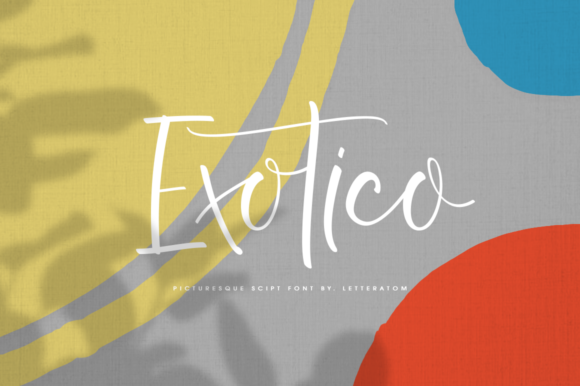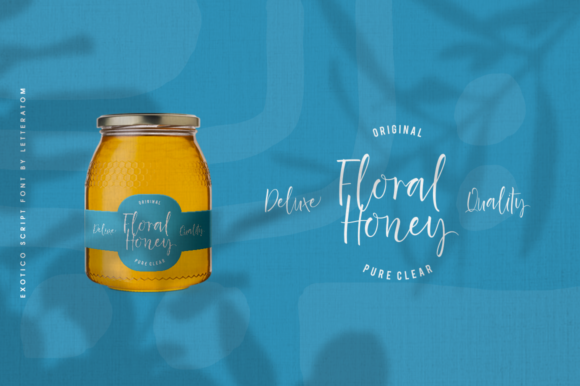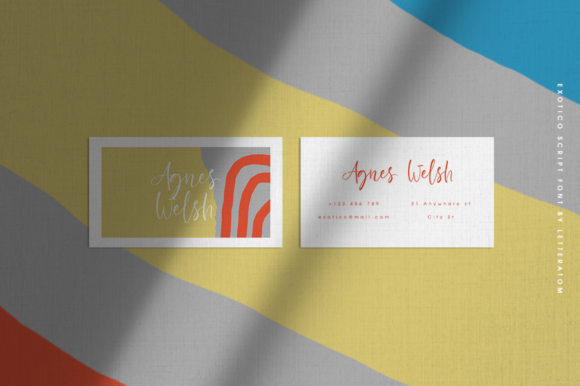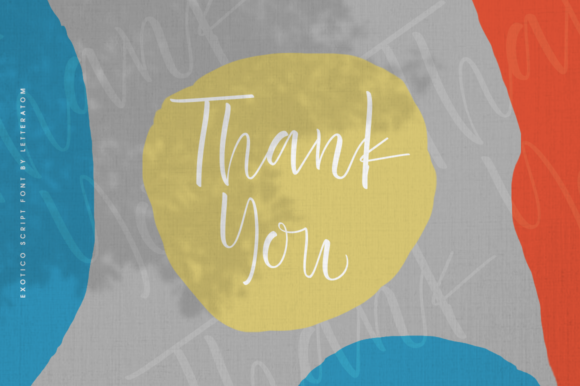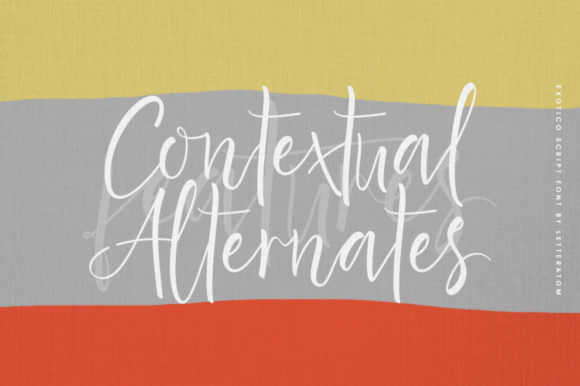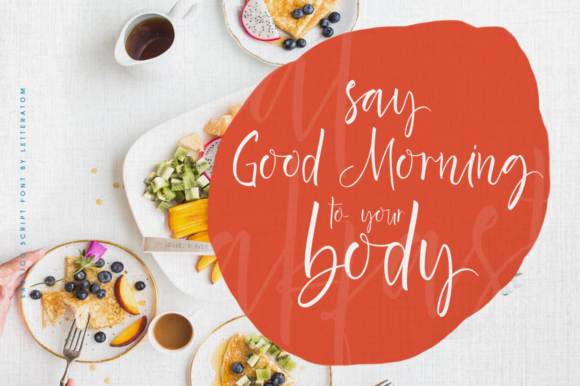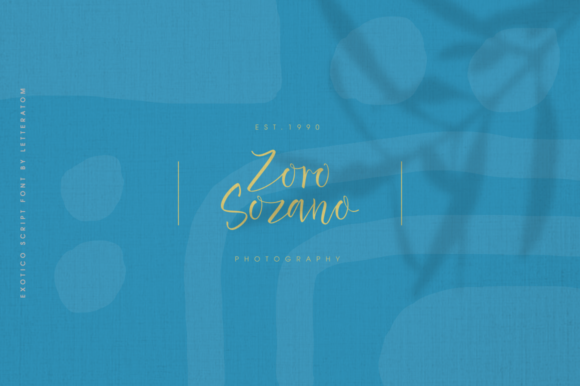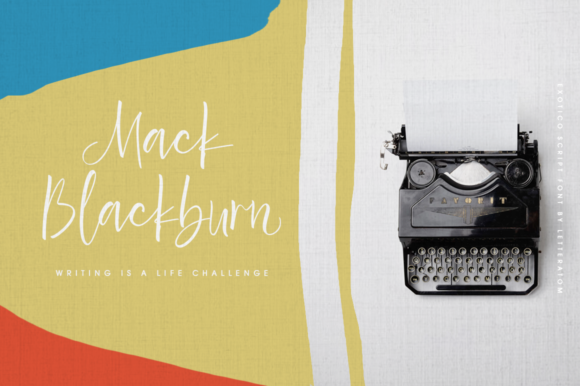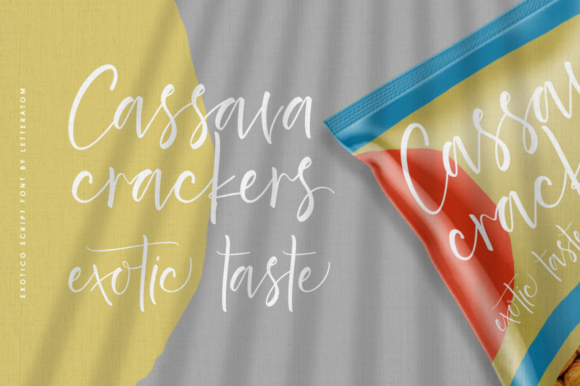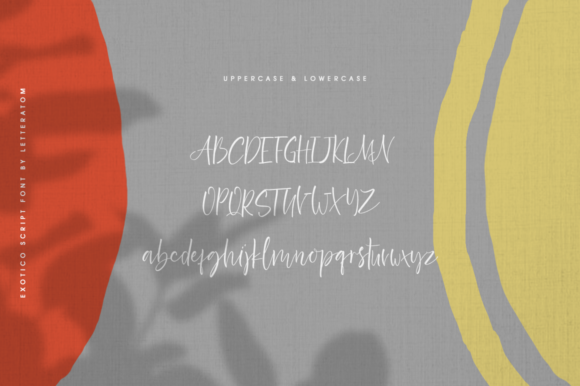
Exotico Font
About Exotico Font
Exotico is a stunning and radiant script, full of personality. With a picturesque touch, it will give a new feel for all your design needs.